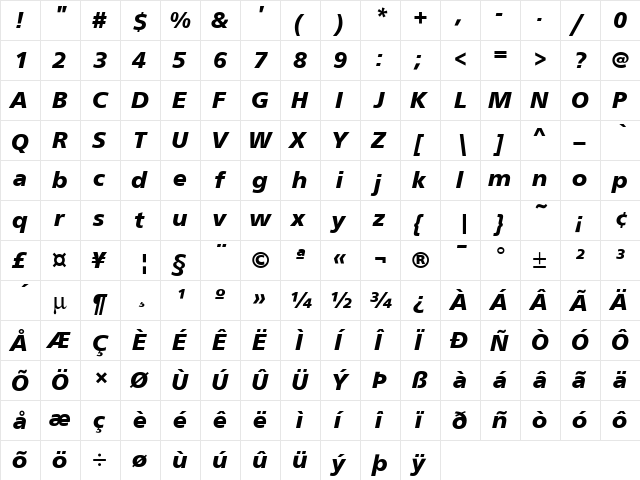
Frutus T Bold Italic
Design Context for Frutus T Typeface
Frutus T is a composed and adaptable typeface that performs quietly and consistently across a wide range of design contexts. The slanted form adds forward momentum and visual energy. The heavy weight commands attention and anchors typographic hierarchies.
Pro Tip: Try Frutus T for annotation and caption copy alongside an upright companion — the contrast in angle creates a dynamic but ordered typographic system.